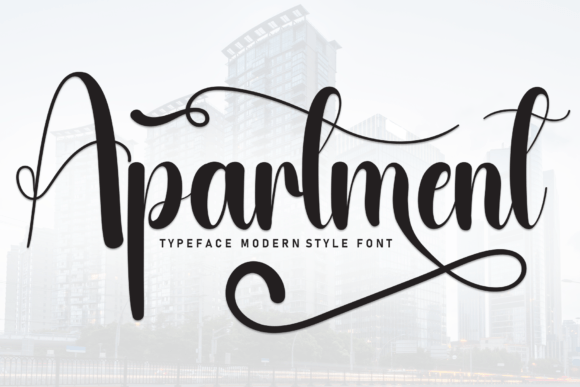
The Sweet Spot: Discovering the Charm of Apartment Font
I’ll never forget the moment I stumbled upon the perfect font for a wedding invitation project. I was on a tight deadline, and my client was specific about the tone they wanted to convey: sweet, friendly, and playful. As I scrolled through my font library, I felt like I was striking out. That was until I met Apartment Font. ✨
This beautiful, handwritten display font instantly captured the essence of what my client was looking for. Its cute and fun vibe was exactly what I needed to bring their vision to life. In this article, I’ll share my experience with Apartment Font, its features, and how to make the most of it in your designs.
- ✨ Sweet and Friendly Vibe: Apartment Font exudes warmth and approachability, making it perfect for projects that require a personal touch.
- ✅ Highly Legible: Despite its handwritten nature, this font is remarkably clear and easy to read, even at smaller sizes.
- 🎉 Versatile: Apartment Font can be used for a wide range of projects, from wedding invitations and cards to social media graphics and more.
While Apartment Font is an excellent choice for many projects, there are a few things to keep in mind: 🤔
- ⚠️ Limited Formality: Due to its playful nature, Apartment Font may not be the best fit for projects that require a formal or professional tone.
- ⚠️ Glyph Limitations: As with any font, there may be limitations to the number of glyphs available, which could impact its use in projects requiring a wide range of special characters.
The Story Behind Apartment Font
Apartment Font was designed with the intention of creating a friendly, approachable typeface for everyday use. Its creator aimed to craft a font that felt like a warm conversation with a friend. While the exact details of its creation are unclear, it’s evident that Apartment Font was made with love and a deep understanding of what makes a font truly special.
Q: What makes Apartment Font unique?
A: Its sweet and friendly vibe, combined with high legibility, makes Apartment Font stand out.
Q: Is Apartment Font suitable for body text?
A: While Apartment Font is highly legible, its playful nature makes it more suited for headings and titles rather than lengthy body text.